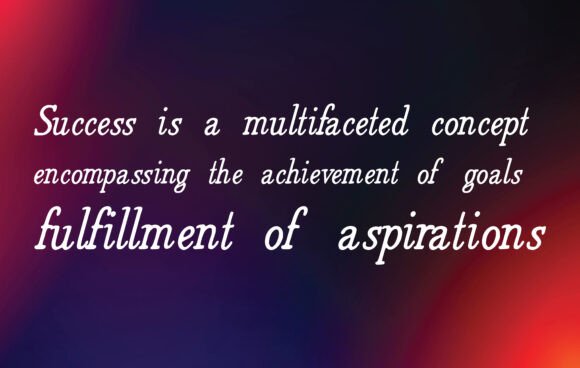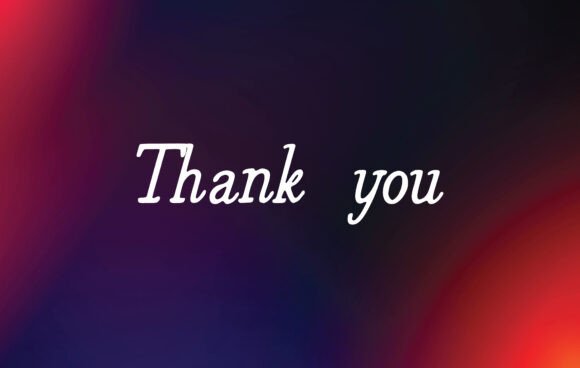
Introduction to Millipede Font
Have you ever been working on a creative project, pouring your heart and soul into a design, only to realize that the perfect font is missing? This is where the magic of the Millipede Font comes in – a stunning handwritten font that can elevate your designs to new heights. With its beautiful and elegant strokes, this font is sure to capture the attention of your audience.
As a designer, you’re always on the lookout for high-quality design resources to help you bring your vision to life. The Millipede Font is a valuable addition to any designer’s toolkit, offering a unique and versatile style that’s perfect for creating eye-catching logos, branding, and quotes. And the best part? It’s available for free download, making it an accessible resource for designers of all levels.
Whether you’re working on a personal project or a commercial design, the Millipede Font is sure to bring a touch of sophistication and elegance to your work. With its transparent background and high-quality design, this font is the perfect choice for any creative project that requires a unique and memorable look.
Key Features of Millipede Font
- Unique, hand-drawn design with a playful and whimsical feel, perfect for creative projects
- High-quality, vector-based font files for seamless scalability and crisp text rendering
- Designed with a bold, modern aesthetic, making it perfect for use in branding, advertising, and editorial design projects
Honest Review: Millipede Font
As a designer, I’m always on the lookout for high-quality design resources to elevate my creative projects. The Millipede Font caught my eye, and I’m excited to share my honest review.
What works well: ✨ The Millipede Font is a versatile and unique font that’s perfect for adding a playful touch to your designs. Its transparent background makes it easy to use on various backgrounds, and the high-quality design ensures it looks great at any size.
What I like most about the Millipede Font is its wide range of applications. It’s suitable for logos, branding, typography, and even digital displays. The font’s fun and quirky style makes it a great addition to any creative project.
- Wide range of applications: The Millipede Font is suitable for logos, branding, typography, and digital displays.
⚠️ One limitation I’ve noticed is that the font might not be suitable for formal or professional projects, as it has a more playful tone. However, for creative projects or designs that require a unique touch, the Millipede Font is an excellent choice.
Overall, I’m impressed with the Millipede Font and would recommend it to designers looking for a fun and versatile font for their creative projects.